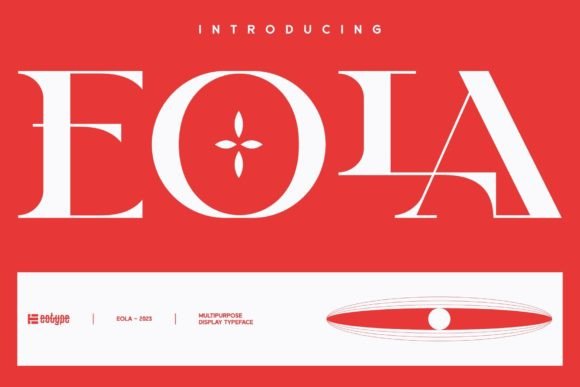
Unleash the Magic of Eola: A Bewitching Font for Spine-Tingling Halloween Creations
Step into the realm of the supernatural with Eola, the spellbinding serif font that casts a magical aura on your Halloween designs. Inspired by the mystical allure of the enigmatic holiday, Eola is a font like no other, captivating audiences with its enchanting contrast between bold and delicate strokes.
Paint the perfect backdrop for your Halloween posters, flyers, and invitations with Eola's captivating design. Its modern-classic blend effortlessly blends tradition with a contemporary flair, evoking a sense of timelessness and intrigue. Let the distinctive serif style of Eola add an air of elegance to your words, transporting your audience to a realm of mystery and wonder.
Unlock the secret chamber of creativity with Eola's alternate and ligature features, granting you access to a treasure trove of unique letter combinations. Unleash your imagination as you craft hauntingly beautiful texts, spellbinding logos, and captivating social media posts that leave a lasting impression on your audience.
Eola is more than just a font; it's a portal to a world where creativity and enchantment collide. Its captivating design breathes life into your words, making them dance with a supernatural grace that will leave your audience spellbound.